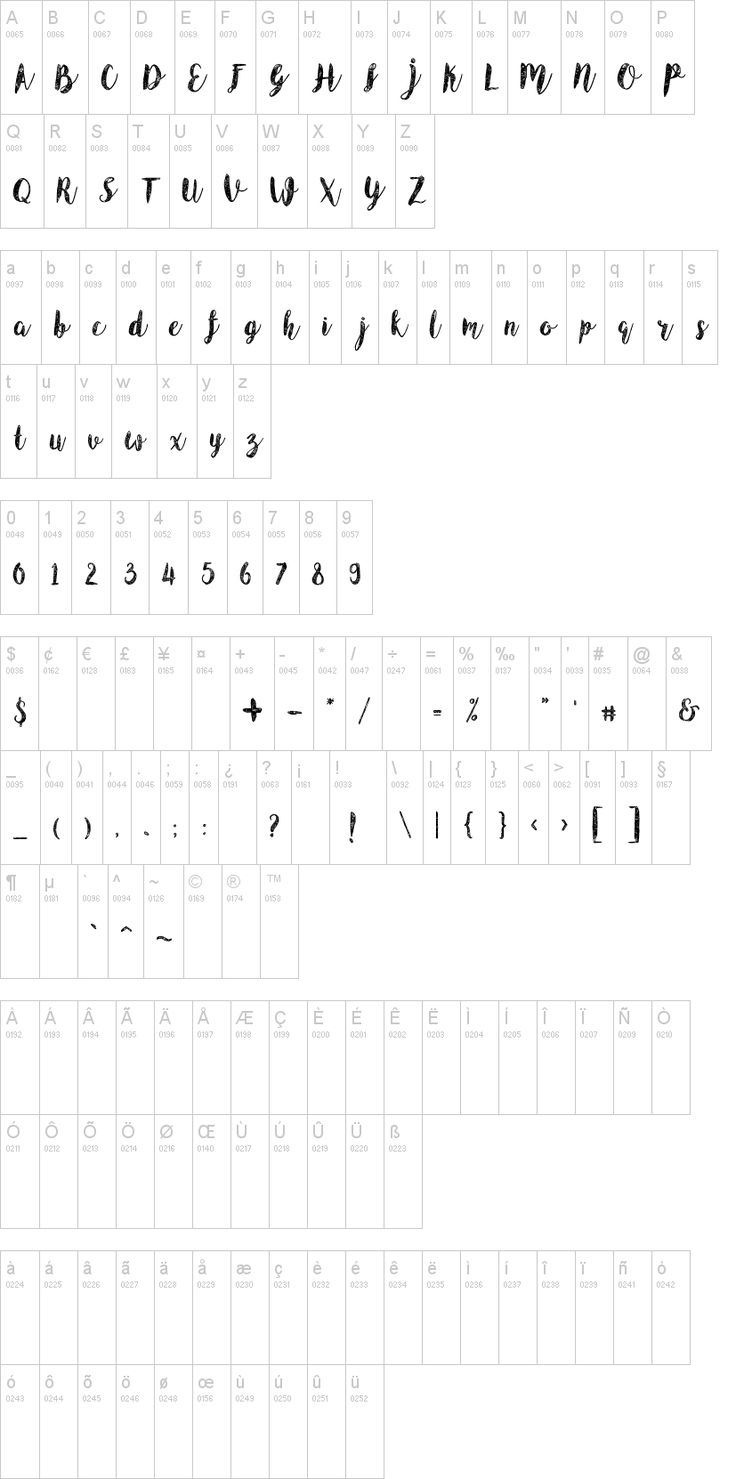
Download the free angeline vintage font by burntilldead. More information about this font.
Angelin is a magical script font carefully created with a touch of elegance. Angeline vintage font | dafont.com. Angeline vintage font free angeline vintage font free is a wonderful classic script and handwritten font.
On june 15, 2016, burntilldead designed and. Angeline vintage font free angeline vintage font free is a wonderful classic script and handwritten font. Download free fonts for windows.
But any donation are very appreciated. Introducing angeline, a beautiful classic brush script font. Angeline vintage font free angeline vintage font free is a wonderful classic script and handwritten font.
On june 15, 2016, burntilldead designed and. Angeline vintage font free angeline vintage font free is a wonderful classic script and handwritten font. Angeline vintage font free angeline vintage font free is a wonderful classic script and handwritten font.
Em escrita > diversas 646.331. On june 15, 2016, burntilldead designed and. Angeline vintage font free is a wonderful classic script and handwritten font.on june 15, 2016, burntilldead designed and.